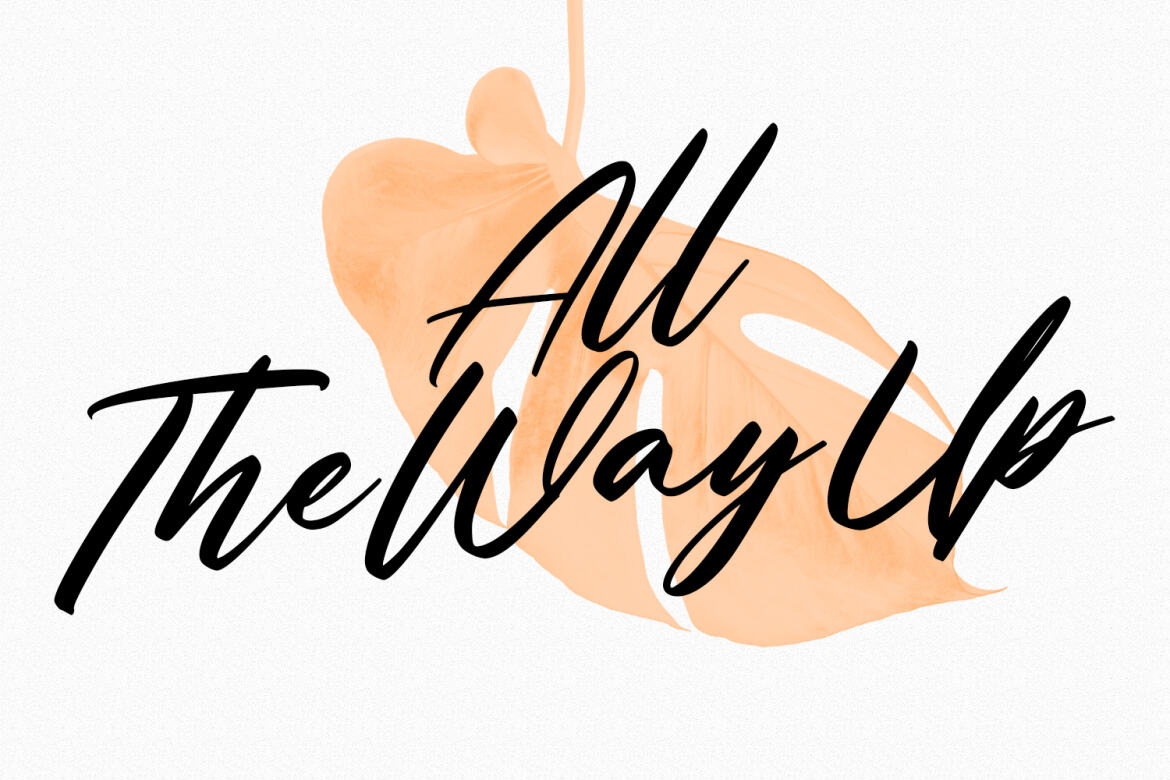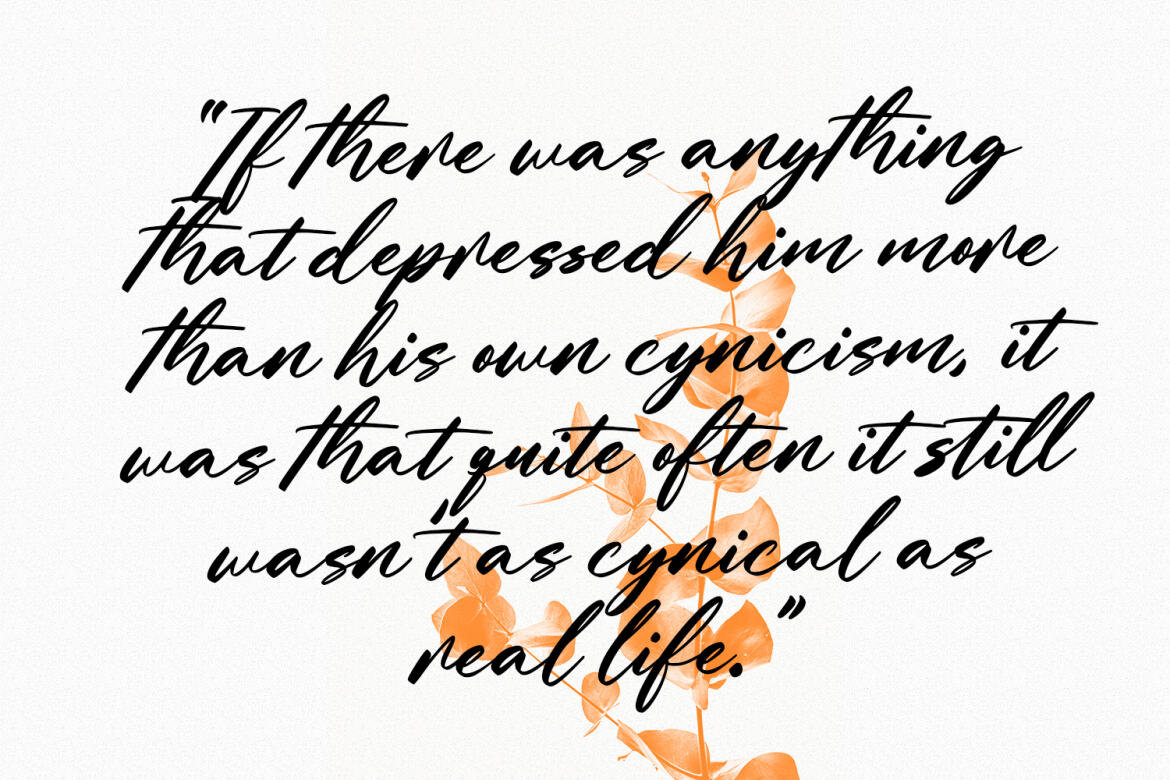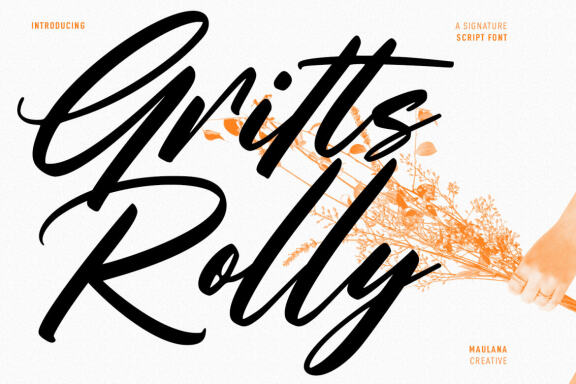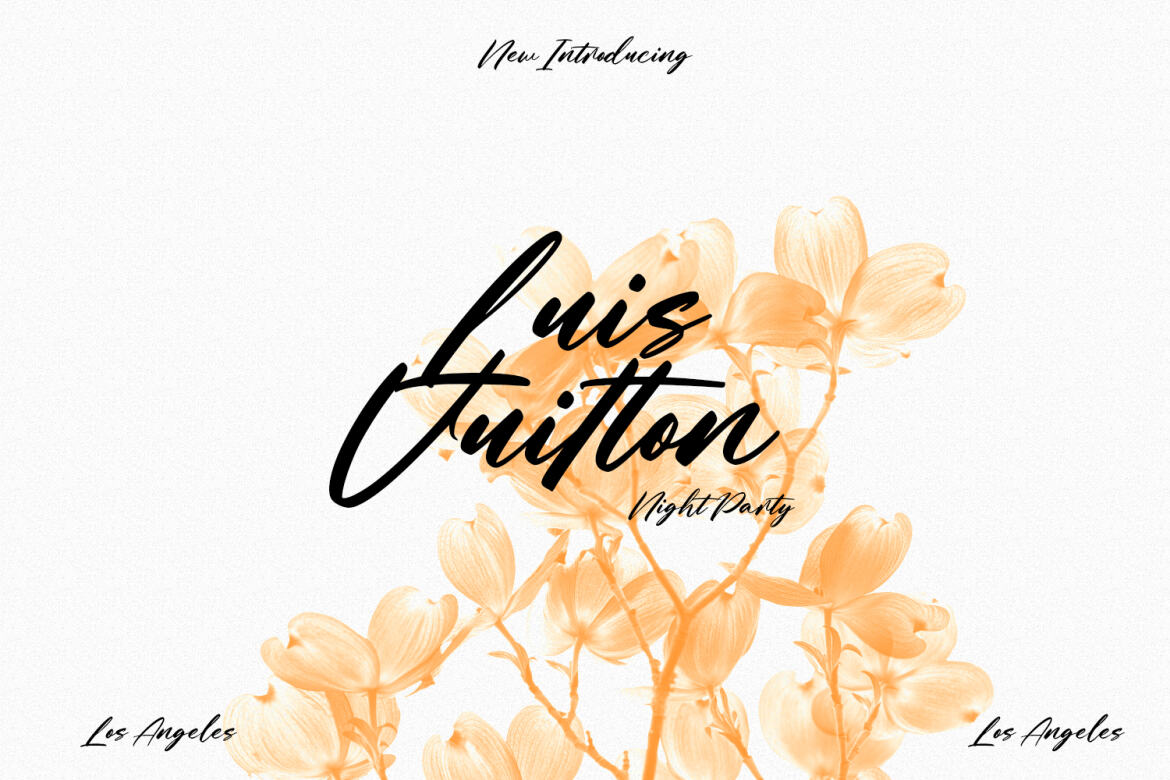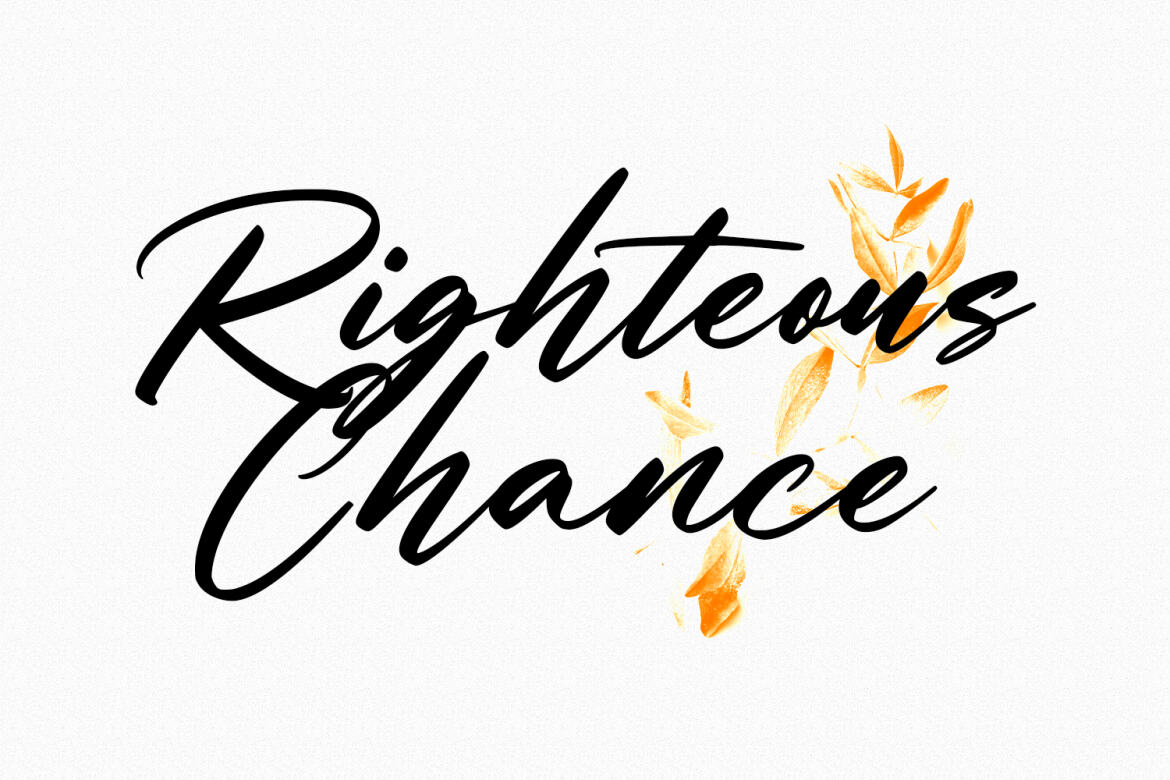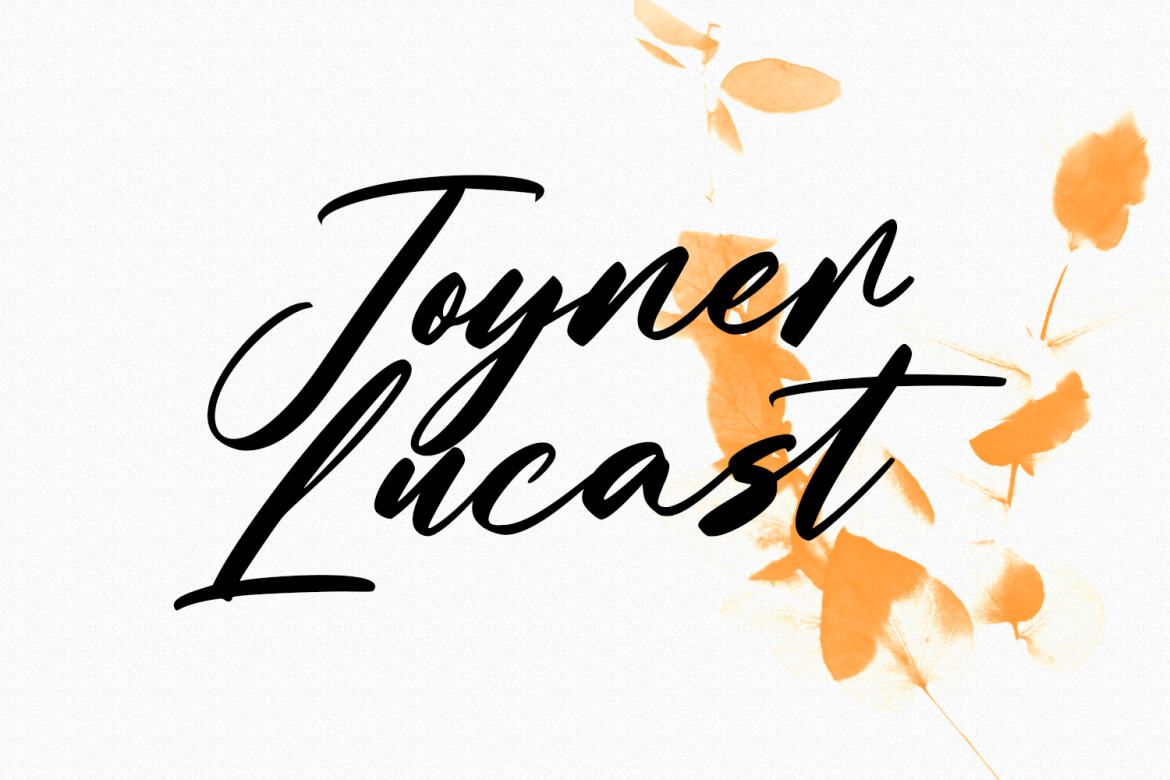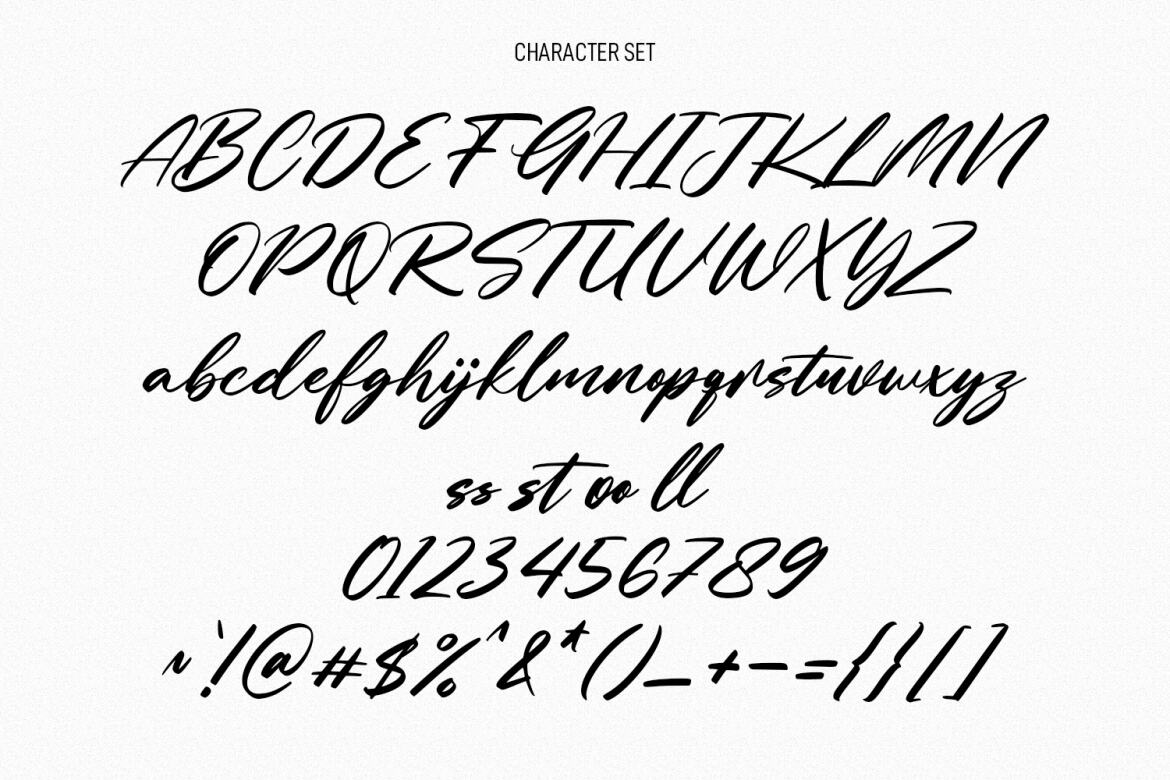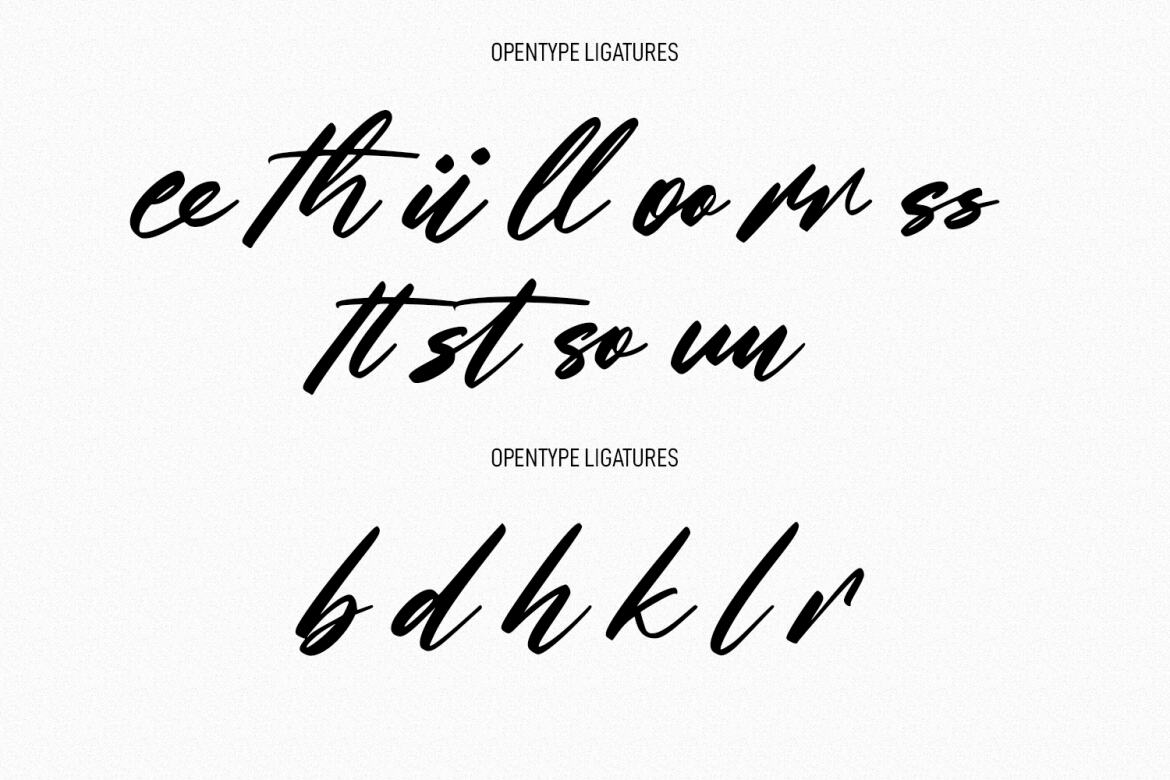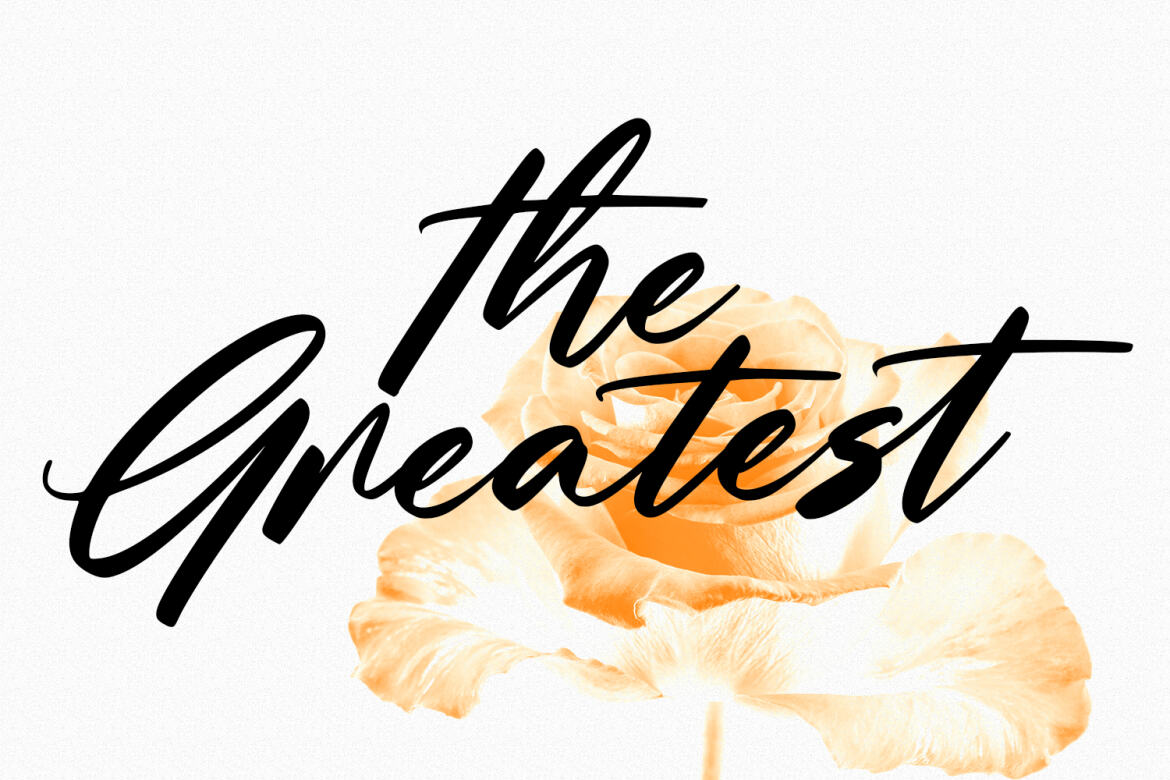
Gritts Rolly
Gritts Rolly is a slanted expressive signature script font. With medium contrast stroke, fun character with a bit of ligatures and alternates. To give you an extra creative work. Gritts Rolly font support multilingual more than 100+ language. This font is good for logo design, Social media, Movie Titles, Books Titles, a short text even a long text letter and good for your secondary text font with sans or serif. Make a stunning work with Gritts Rolly font.